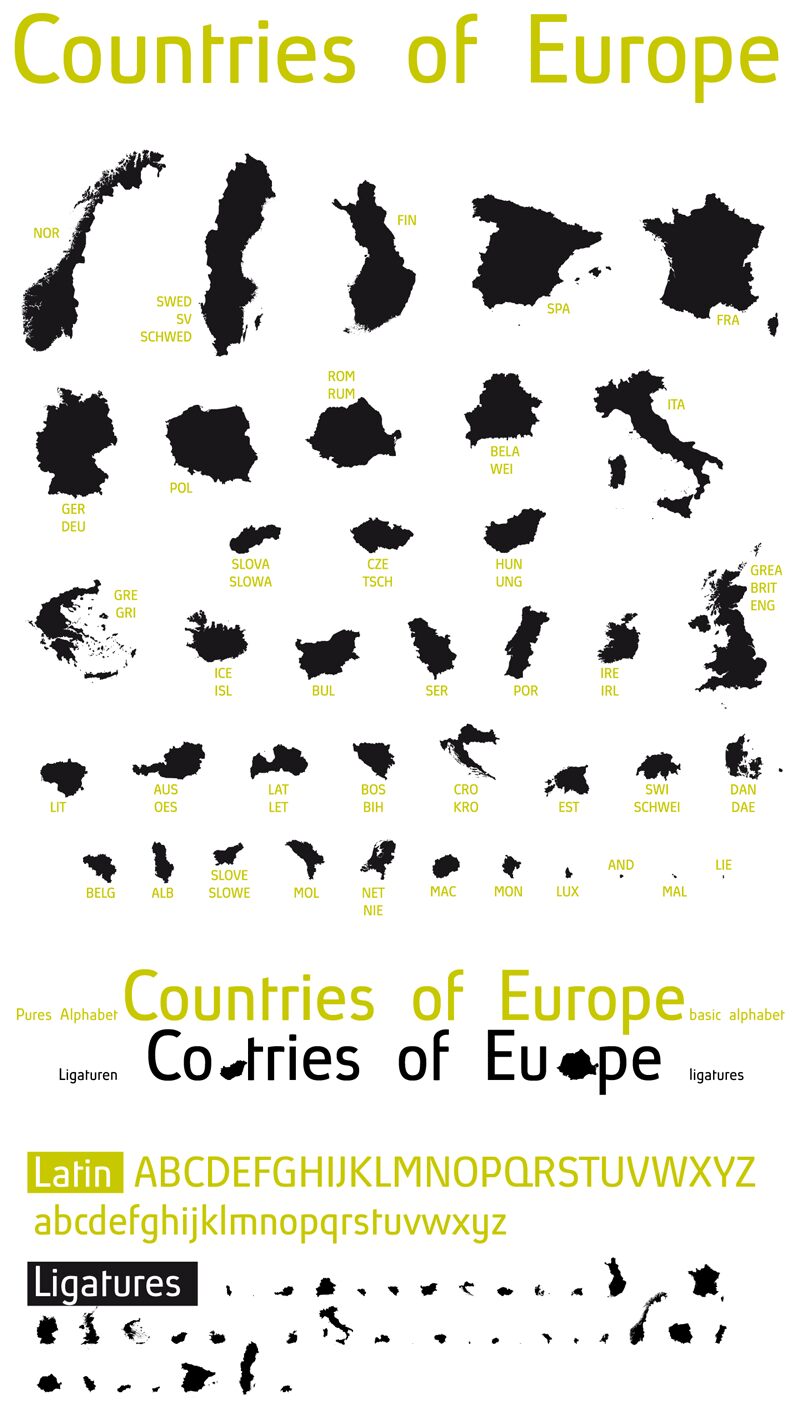
Countries of Europe font
Countries of Europe
The Europe font creatively unites the shapes of European countries into a single typeface. This innovative font employs the new OpenType technique to display the outlines of various countries directly on your screen. It includes both upper and lower case letters, from A to Z and a to z, allowing for versatile use in your projects.
With true-to-scale silhouettes representing 39 European nations, you can easily bring this unique style to your designs. Simply type the first few letters of a country’s name, and the corresponding shape will appear. For example, typing "ir" will showcase the outline of Ireland, while "SWED" will display Sweden.
The font encompasses a diverse range of nations, including Albania, Andorra, Austria, Belarus, Belgium, Bosnia and Herzegovina, Bulgaria, Croatia, Czech Republic, Denmark, Estonia, Finland, France, Germany, Great Britain, Greece, Hungary, Iceland, Ireland, Italy, Latvia, Liechtenstein, Lithuania, Luxembourg, Macedonia, Malta, Moldova, Montenegro, Netherlands, Norway, Poland, Portugal, Romania, Serbia, Slovakia, Slovenia, Spain, Sweden, and Switzerland.
This free font is an excellent resource for those looking to incorporate a European theme into their design projects.